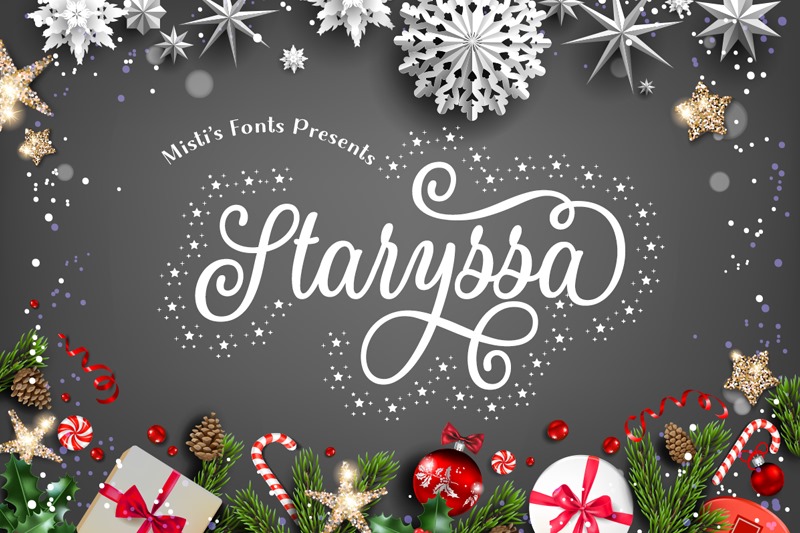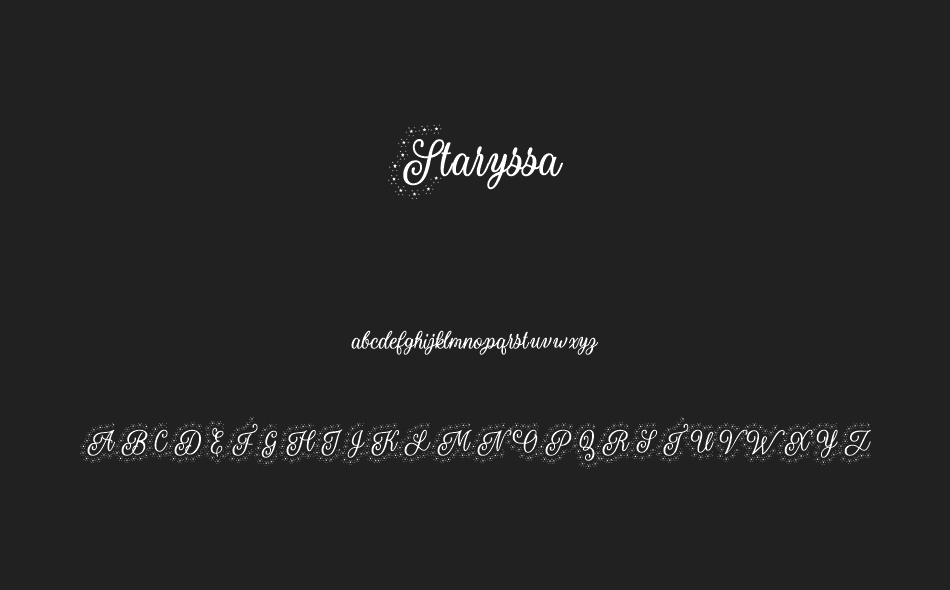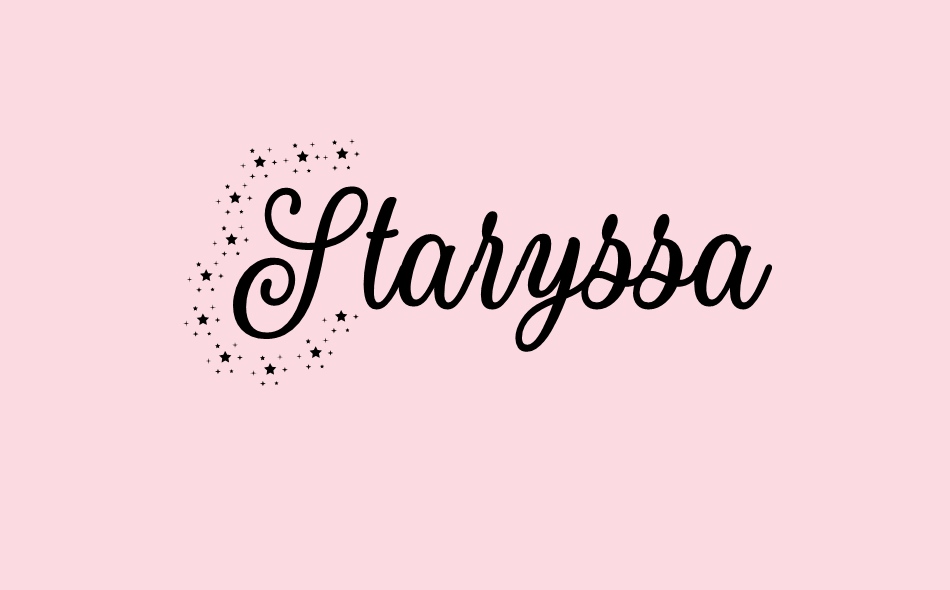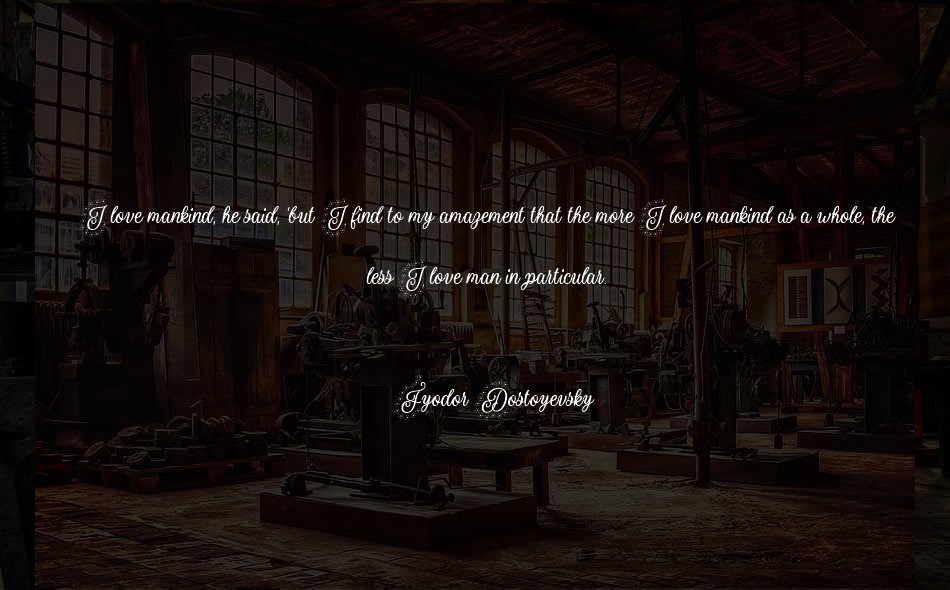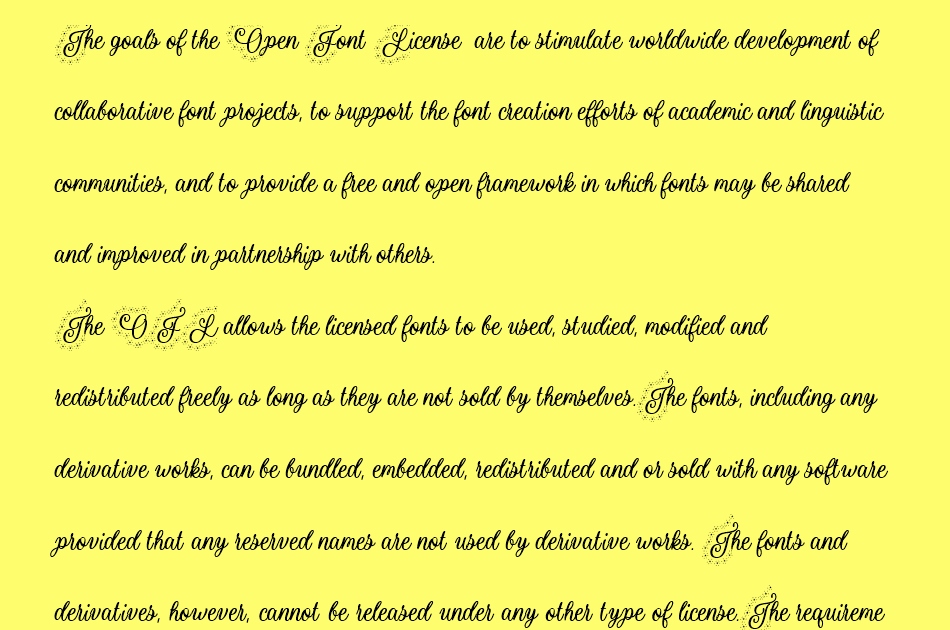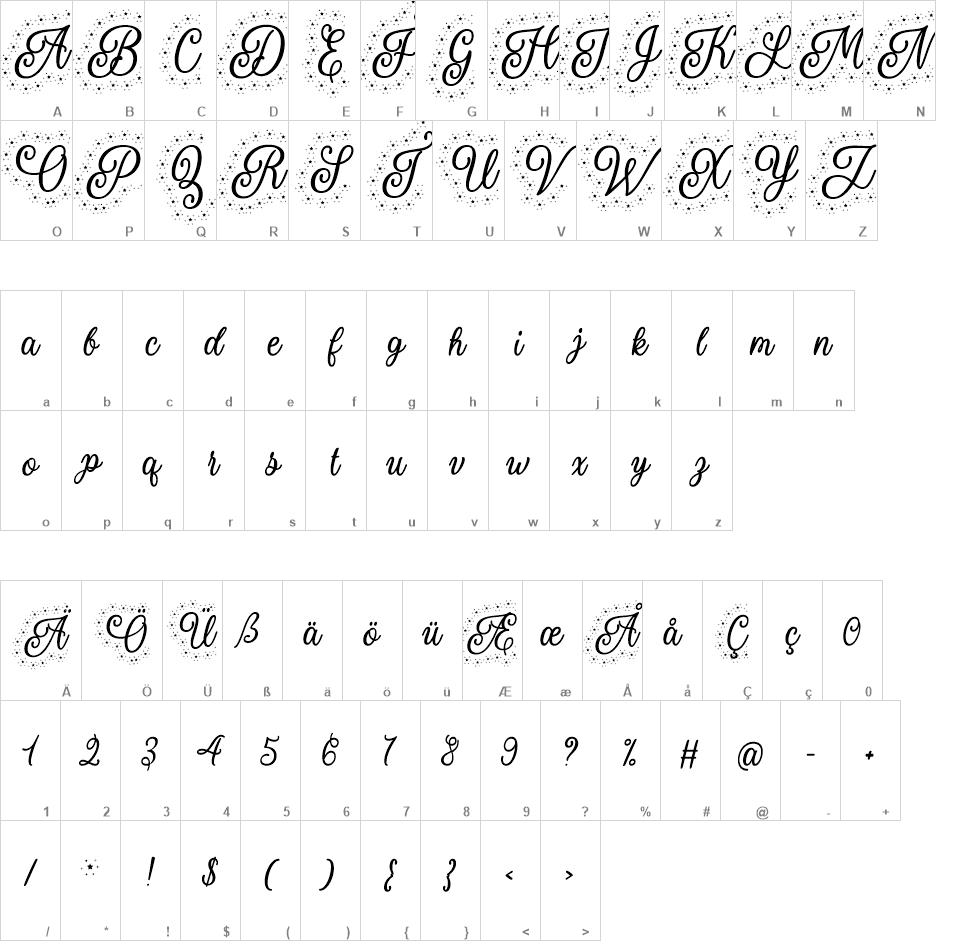
Staryssa font
Staryssa is a stunning calligraphy script font accented with beautiful stars. It was designed with printing and sublimation in mind and will look great with foiling on greeting cards, stickers, and anything you can imagine. This font is also packed with fantastic glyphs that will add even more wow factor to your designs. This font is PUA encoded, which means you can access all of the glyphs and swashes with ease!